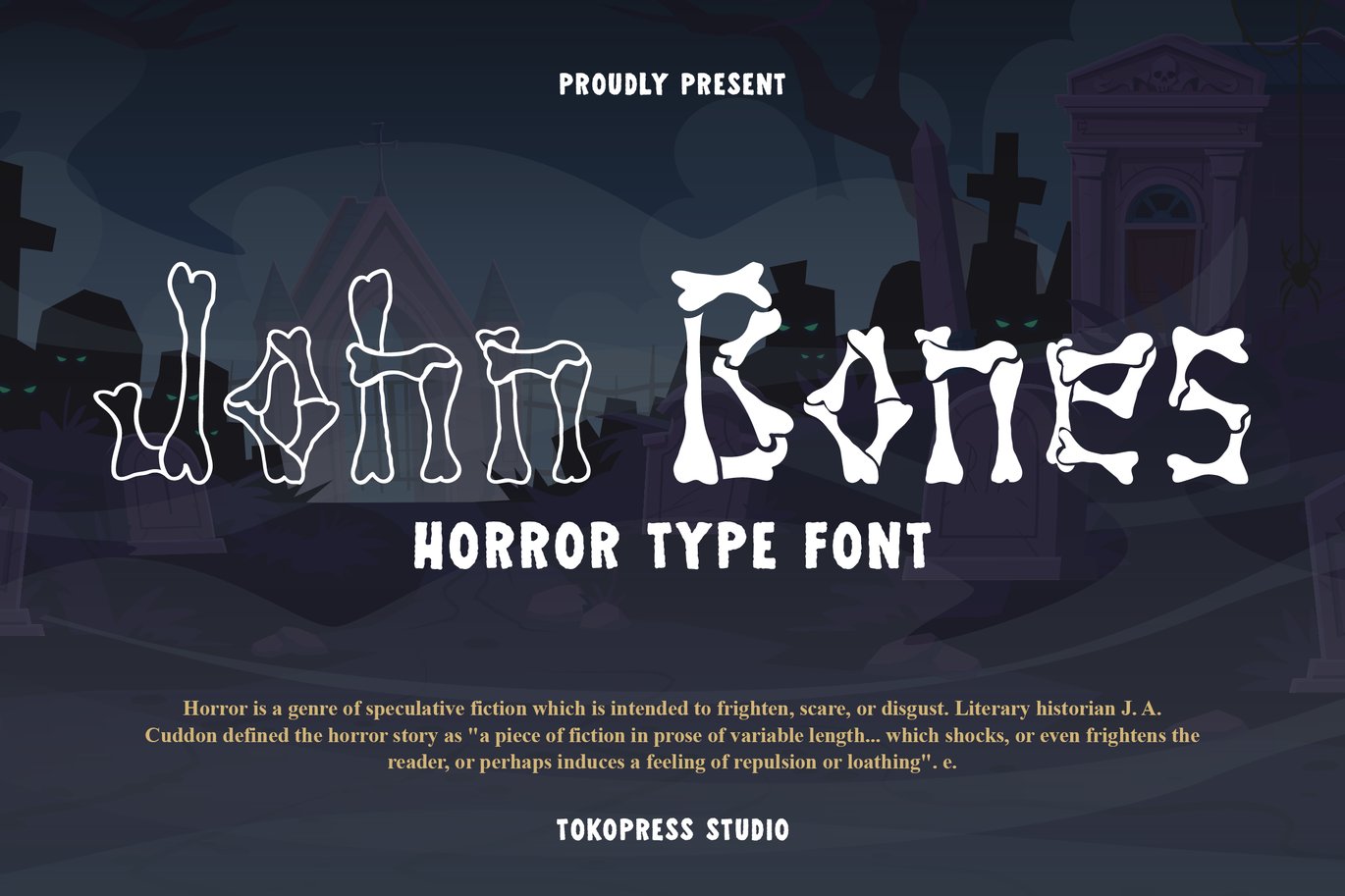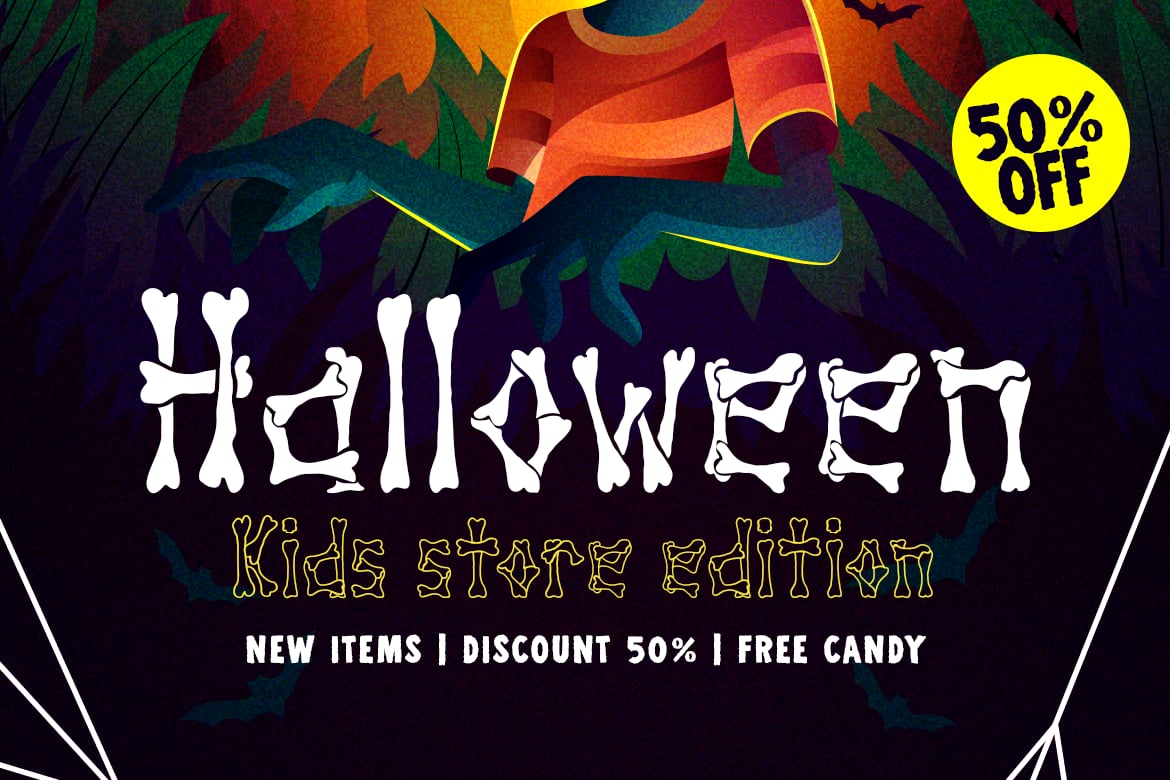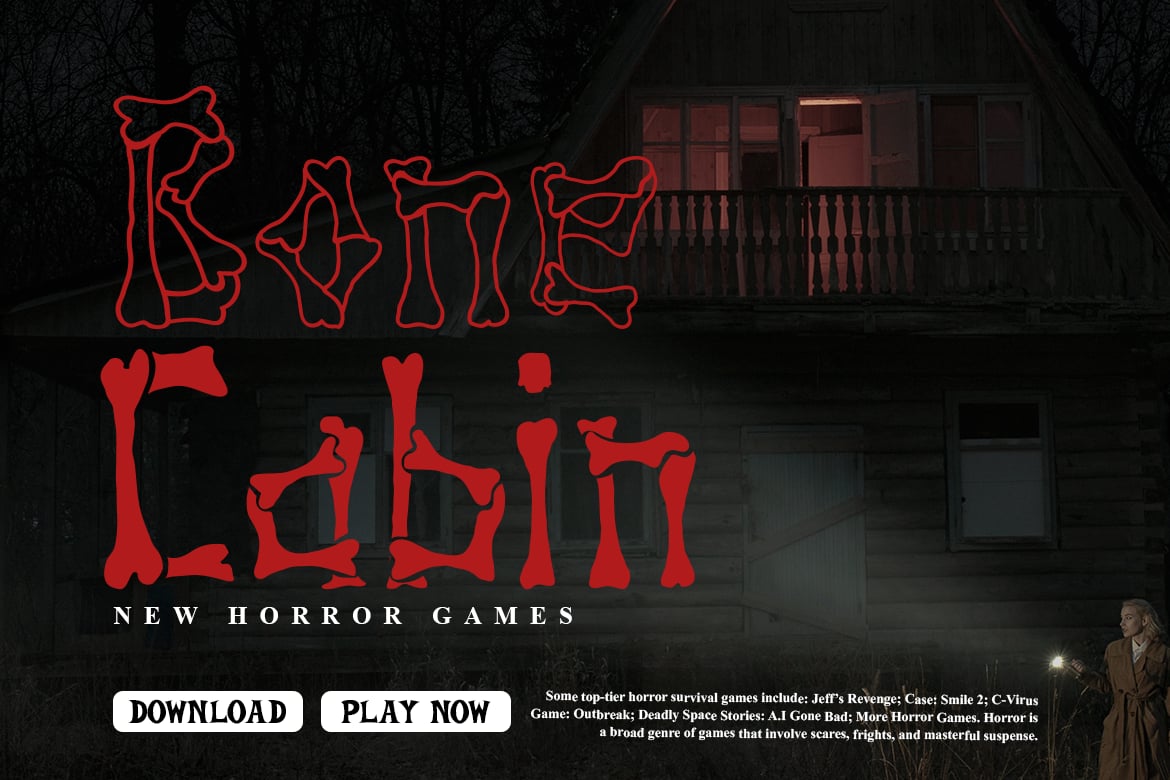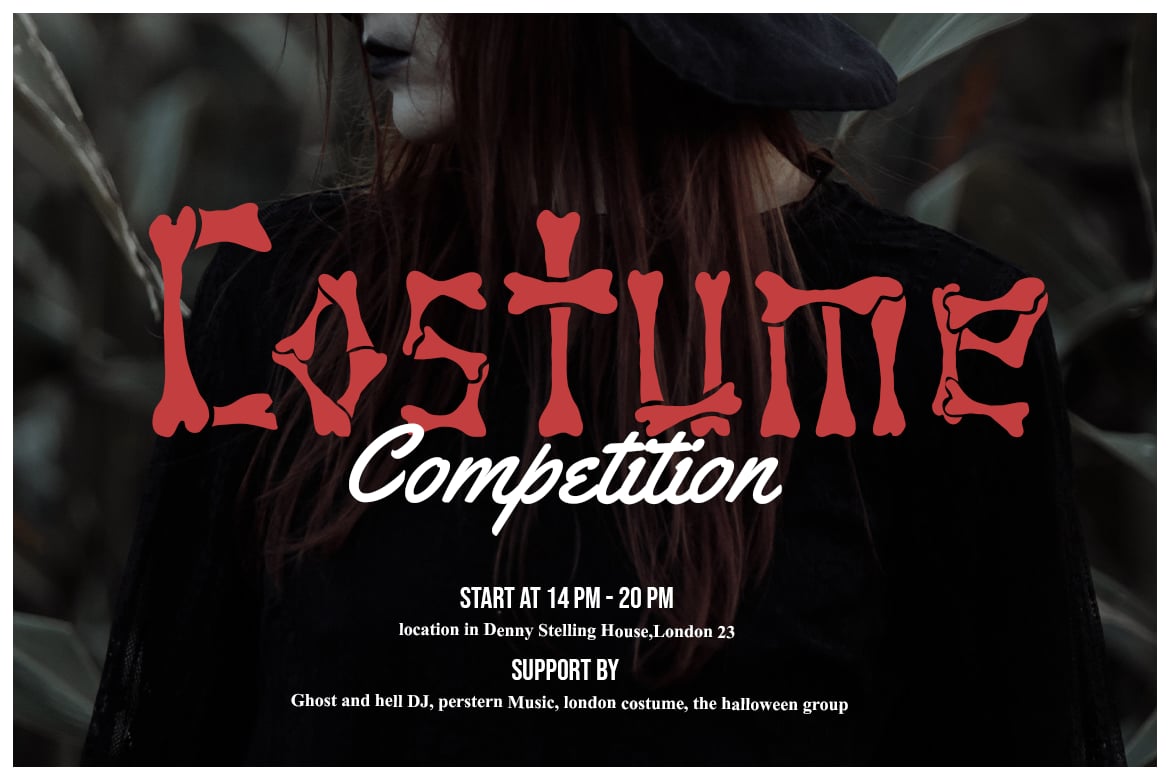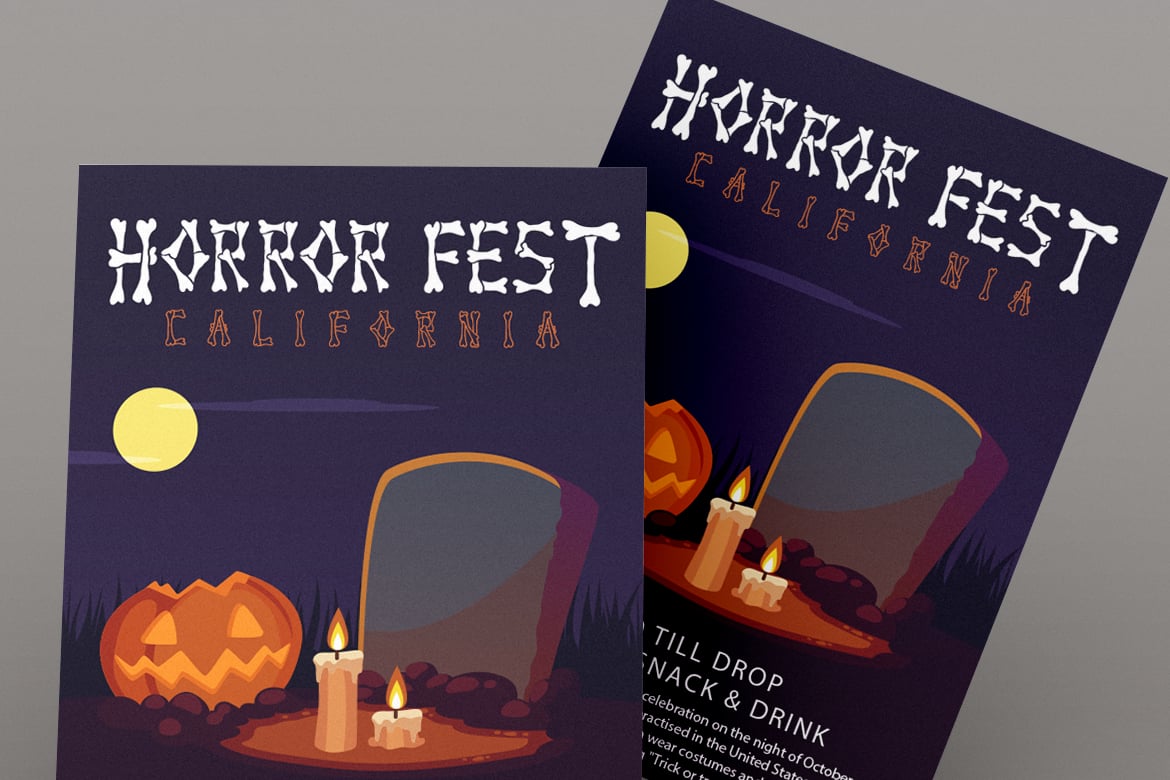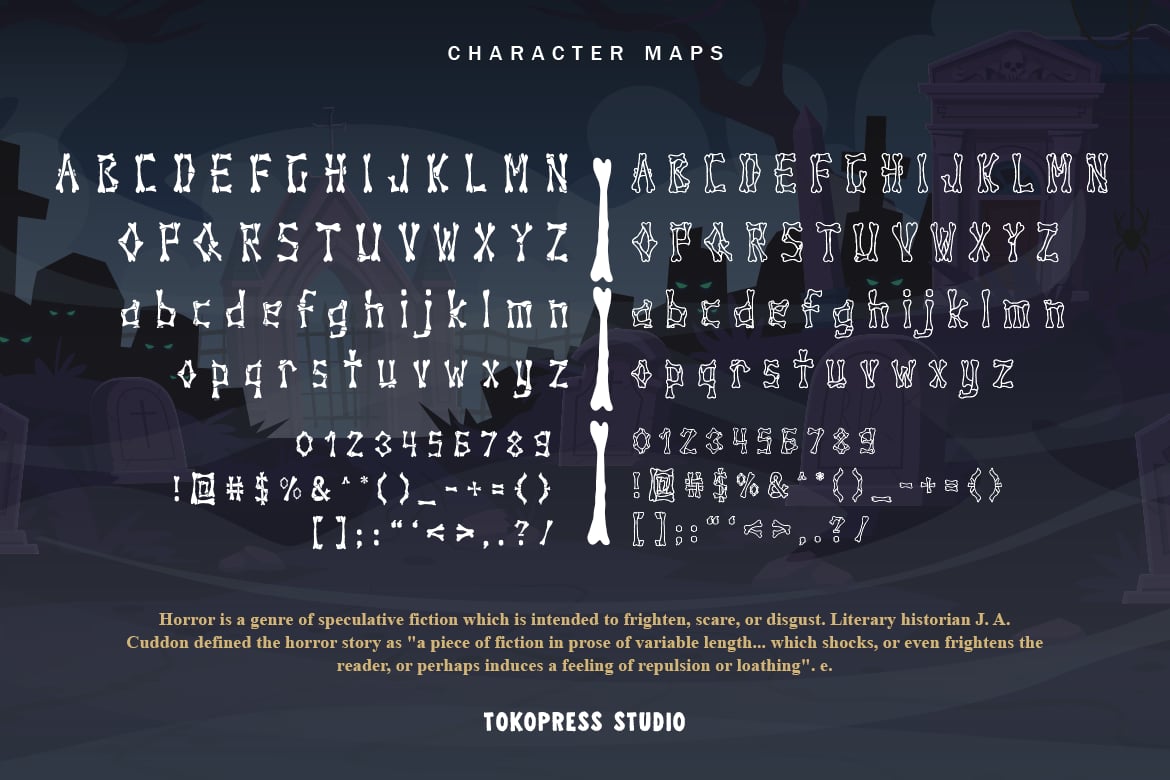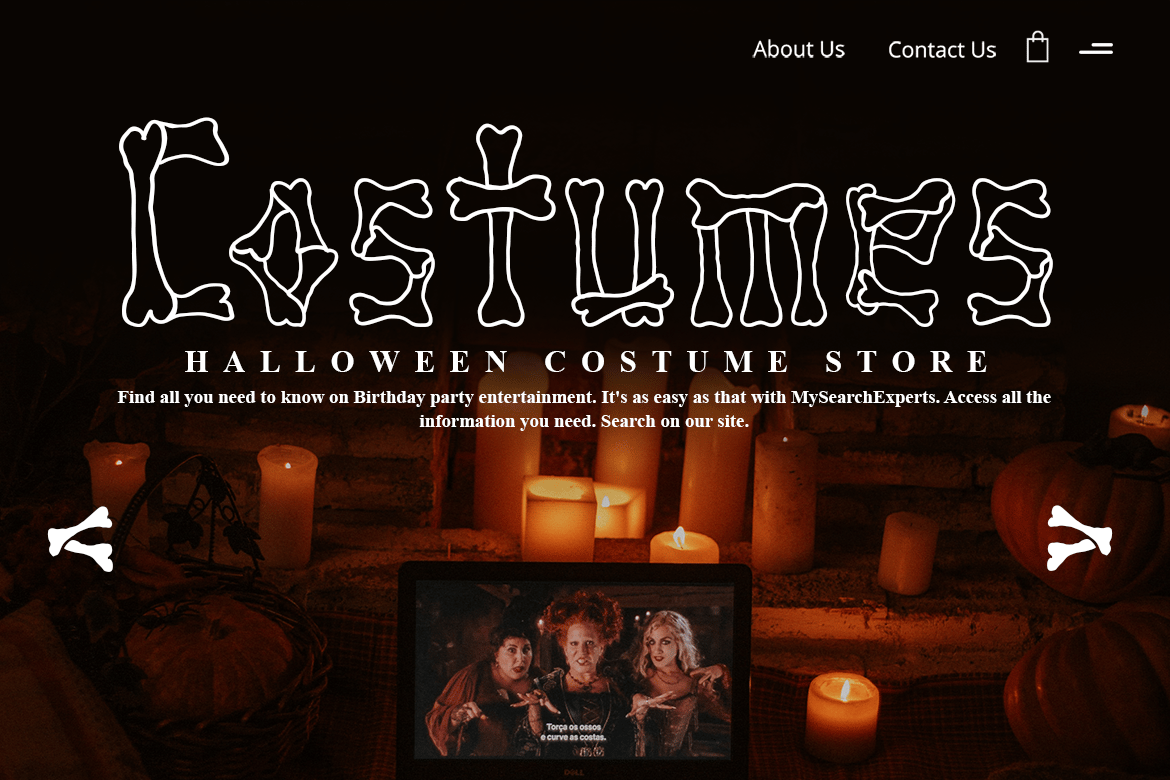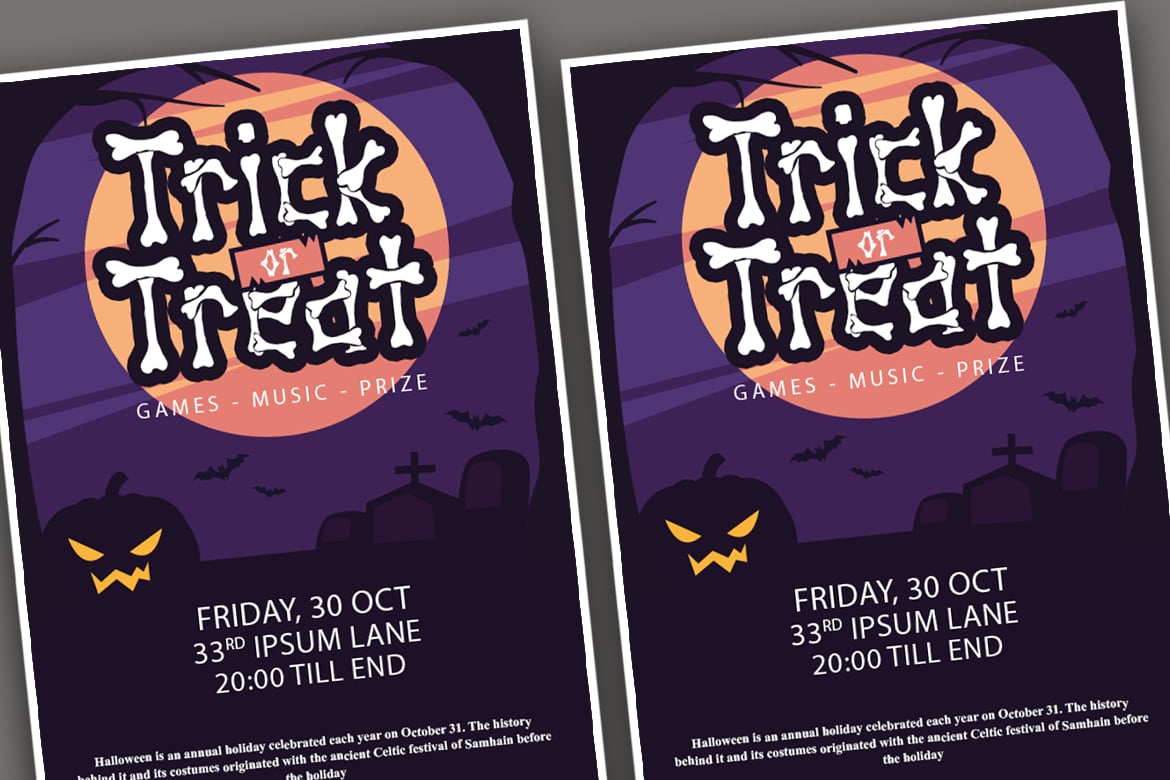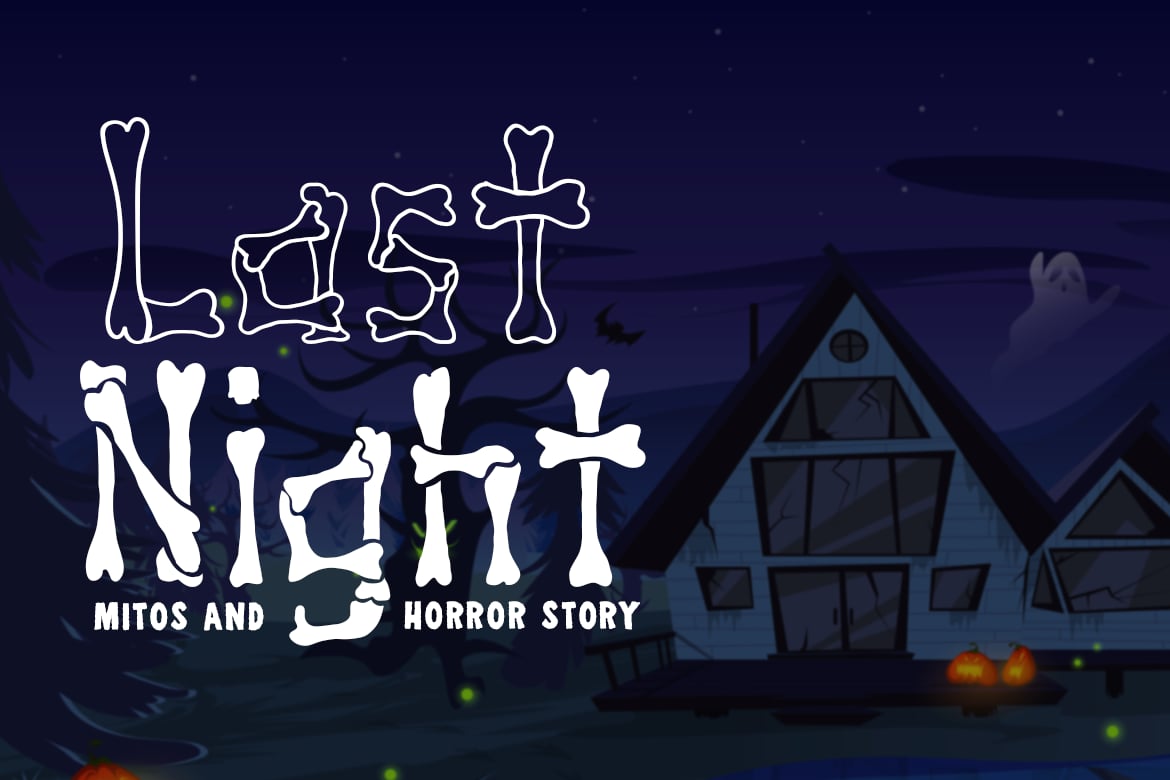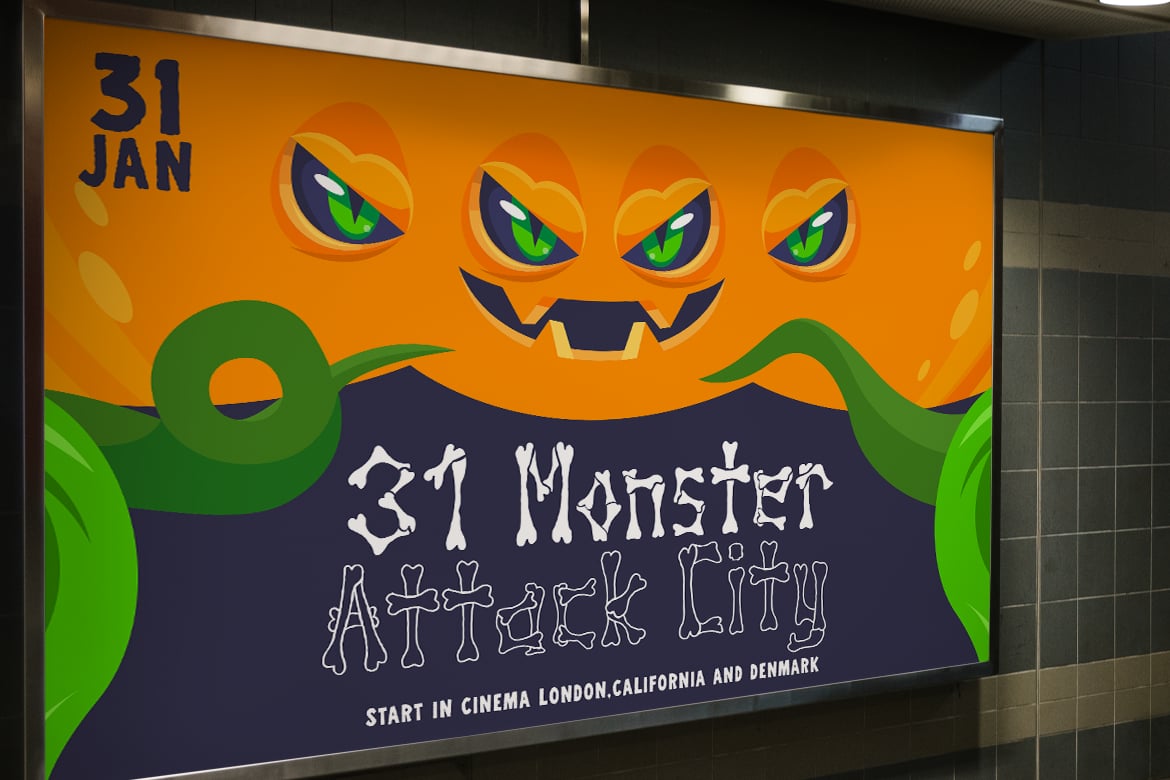
John Bones – Scary Font
Feel the thrill with lots of skeleton around. John Bones will terrorize the town.
Suit perfectly for mystery gaming market audiences, halloween poster, movie title, fun restaurant/ cafe menu, magazine, youtube covers, youtube thumbnails, social media page covers and so on…
- Regular and Line version
- Basic latin A-Z and a-z, numbers, punctuations